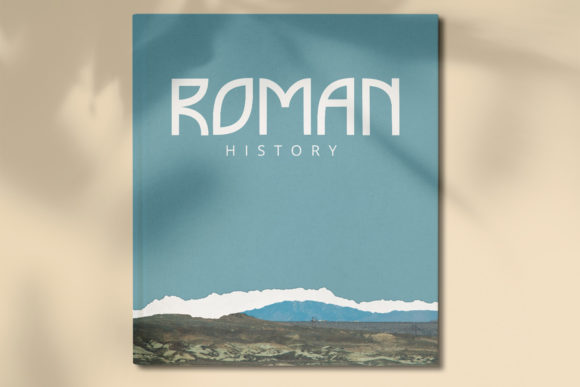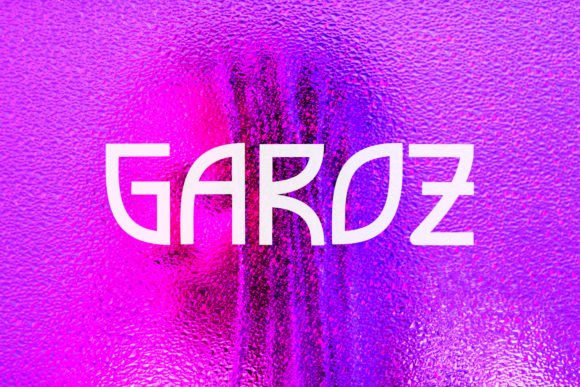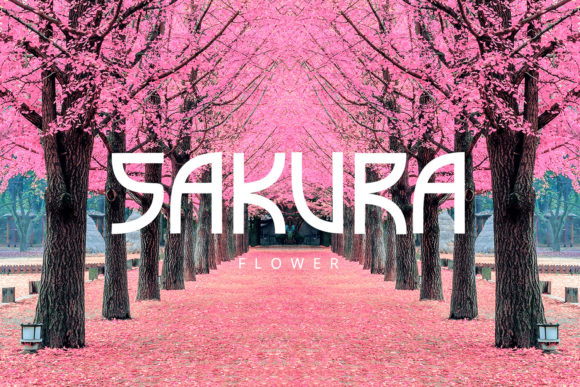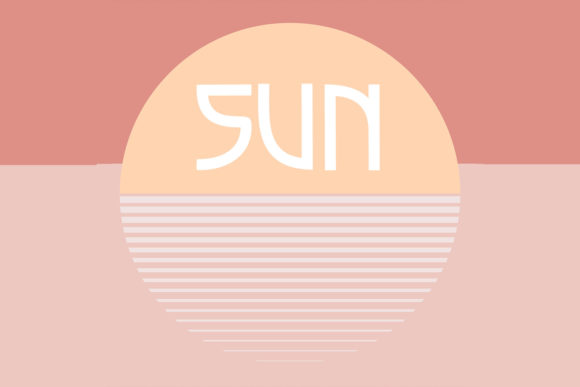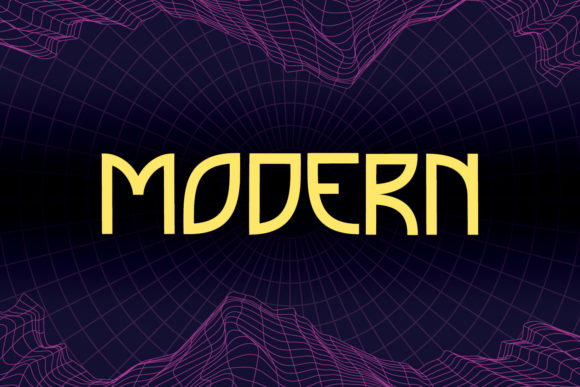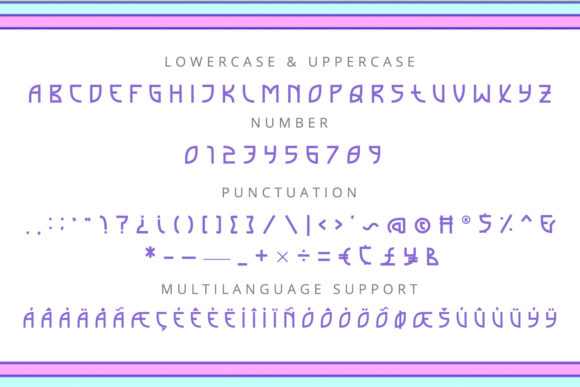
Introduction to Komon Font
Komon is a stunningly playful display font with cute and casual accents.
It is a perfect fit for Branding, Logo Design, Lettering, Logotype, Clothing, Poster, magazine, packaging, posters, shopping bags, and many other design projects .
Key Features of Komon Font